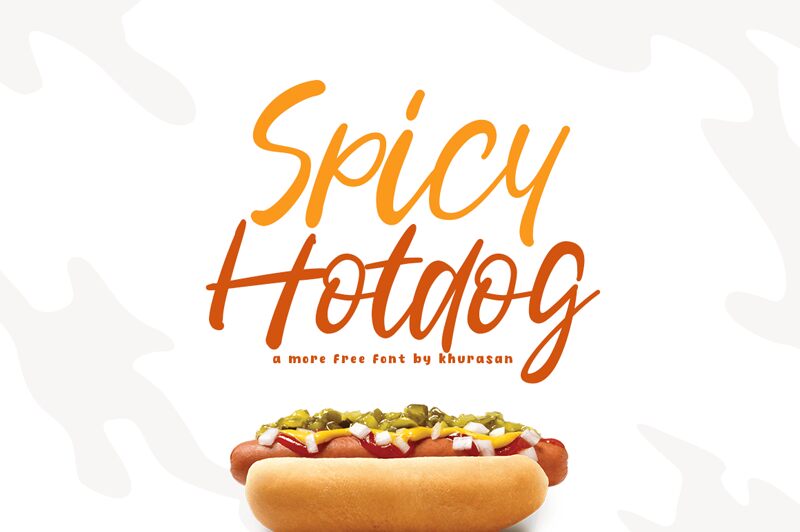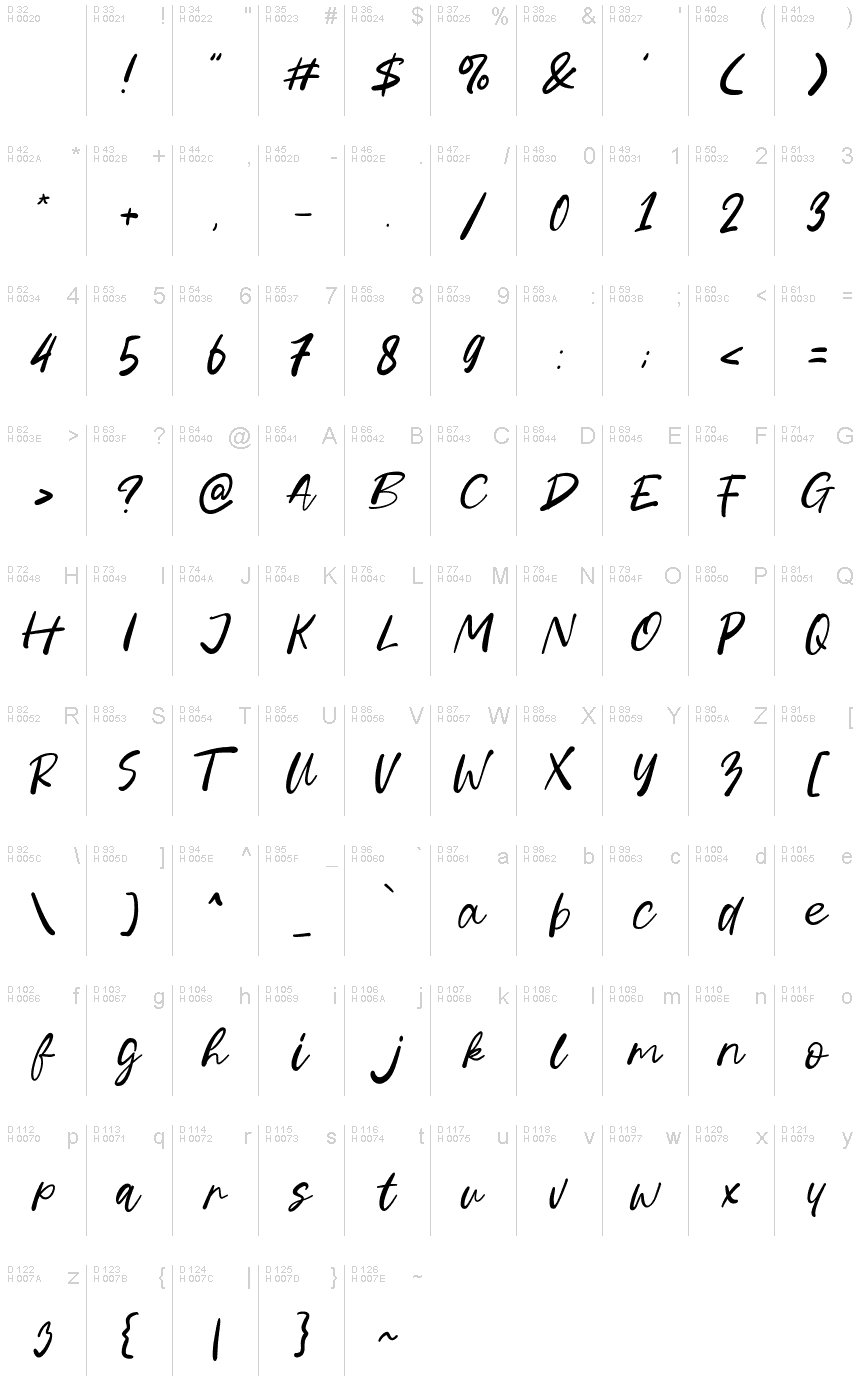
Spicy Hotdog
Spicy Hotdog, a delightful creation by Khurasan, is a semi-light, handwritten font that radiates warmth and playfulness. Its whimsical curves and imperfect strokes exude a sense of authenticity and approachability.
Perfect for food blogs, recipe books, or restaurant menus, this font adds a dash of spice to any culinary project. With its friendly demeanor and unique character, Spicy Hotdog invites readers to savor every word. Let this lively typeface ignite your creativity and bring flavor to your design!